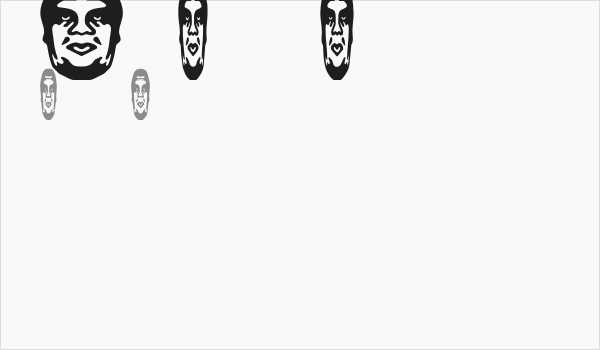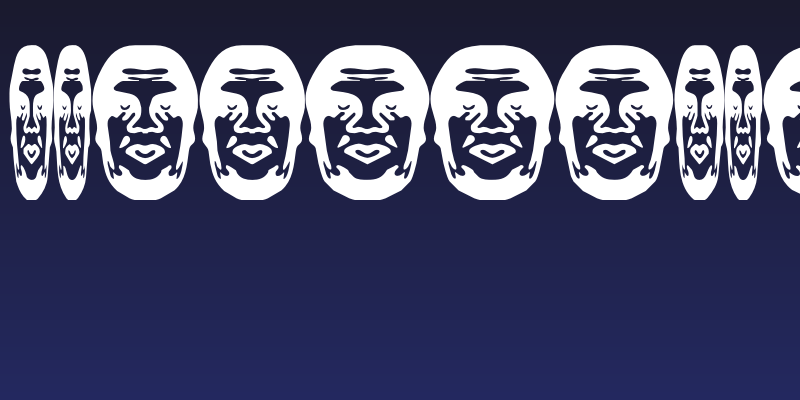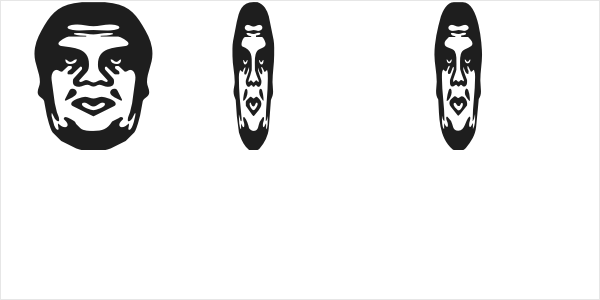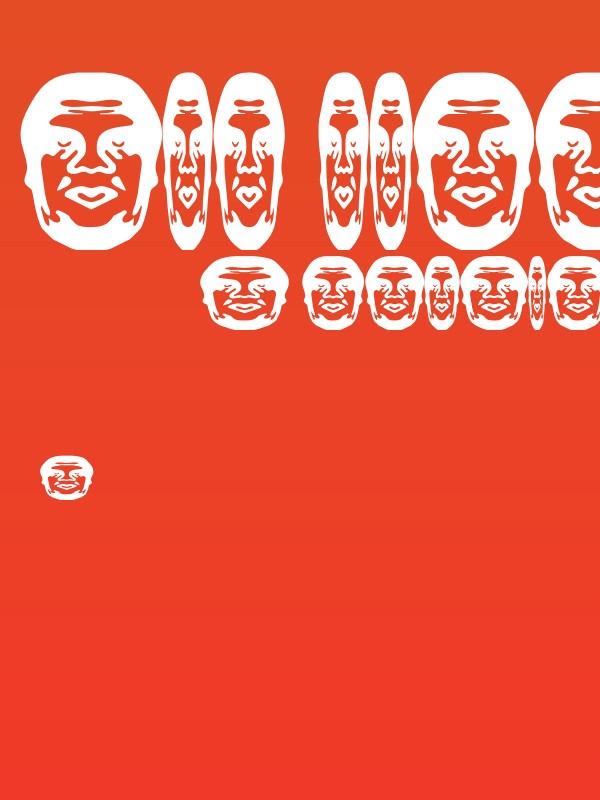
ObeyBalloonCaps Font
ObeyBalloonCaps Description
A highly stylized decorative font featuring bold, graphic illustrations of a face in place of traditional letterforms, with each character morphing in width and proportion across the alphabet.
| Overall Style | Decorative, Graphic, Pop Art-inspired |
| Use Case | Logos, Headlines, Posters, Artistic projects |
| Proposed Projects | Posters, album covers, street art, event branding, parody designs. |